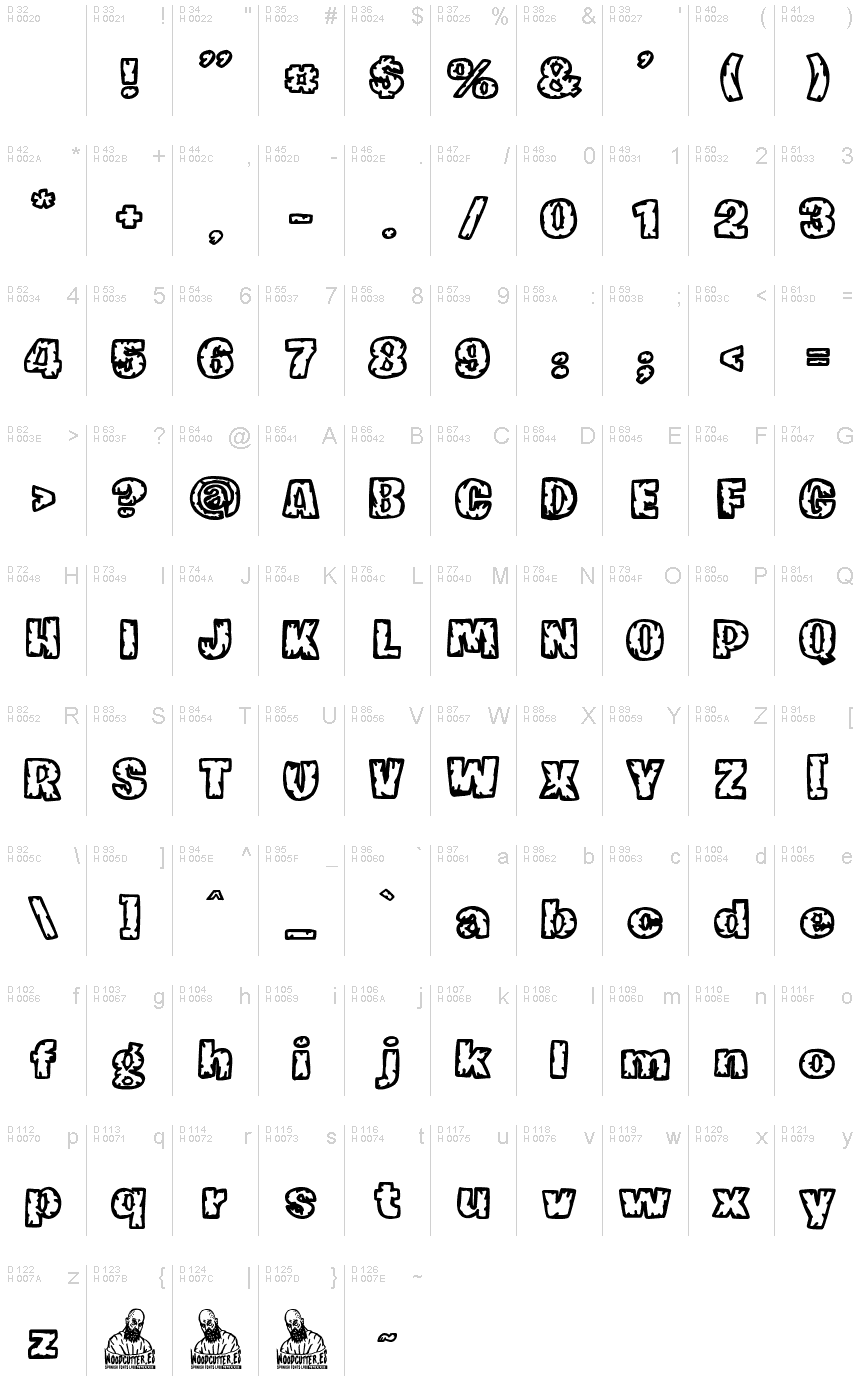
Fornicador Antiguo
Fornicador Antiguo, designed by Woodcutter, is a bold and decorative display font that exudes an ancient charm.
With its intricate details and strong presence, this typeface is perfect for creating eye-catching headlines, posters, and logos. Its bold weight adds a touch of authority and intensity to any design project. Whether you're working on historical projects, fantasy-themed designs, or even edgy fashion branding, Fornicador Antiguo will captivate your audience with its unique character.